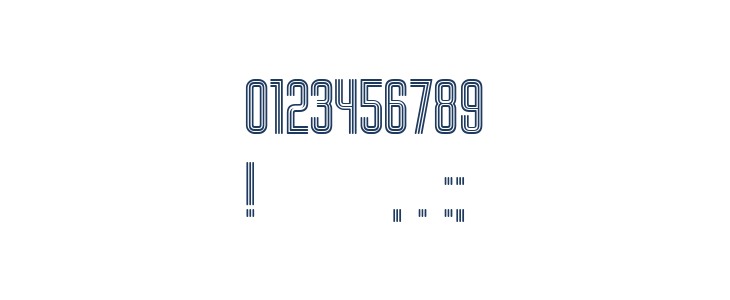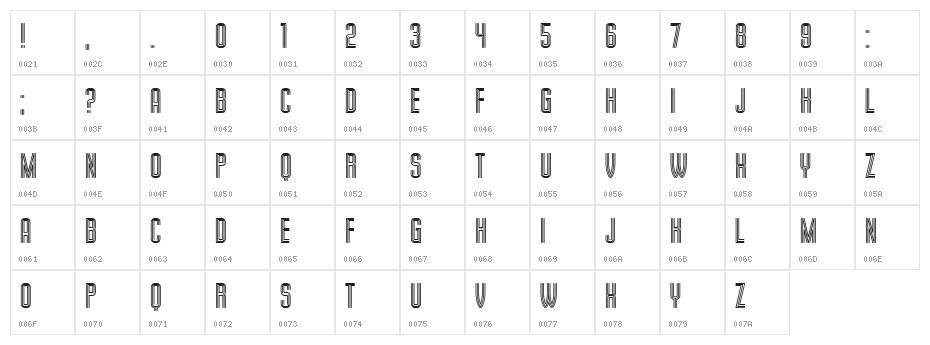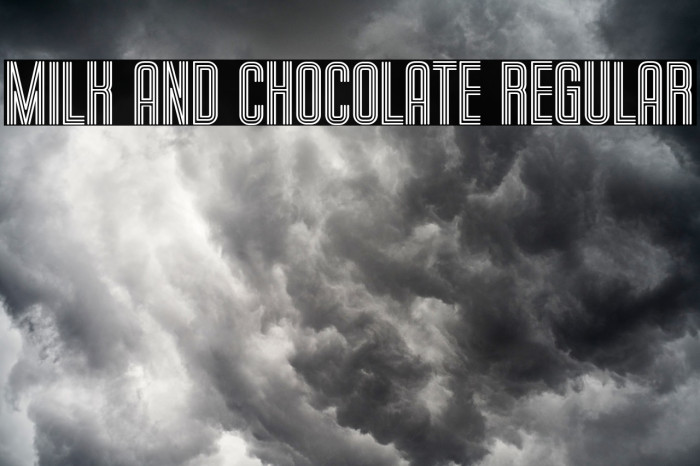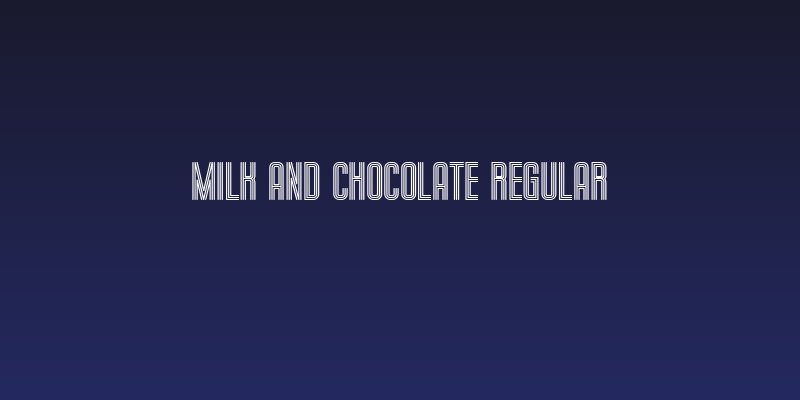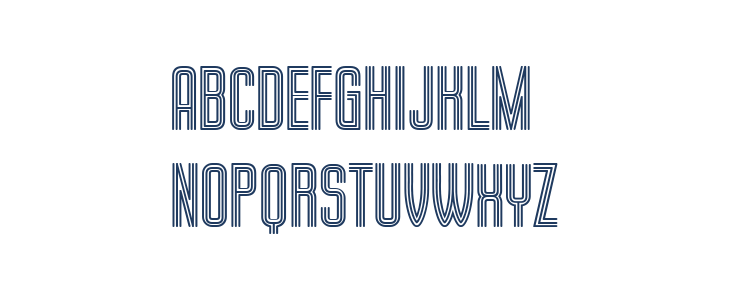
Milk and Chocolate Regular Font
Milk and Chocolate Regular Description
This font features a unique, decorative style with multiple parallel lines forming each character, creating a visually striking and intricate appearance. The uppercase letters are bold and geometric, with a consistent height and width that gives a uniform look. The numbers follow the same design principles, maintaining the decorative line pattern. The special characters are similarly styled, ensuring cohesion across all elements. This font's distinct design makes it ideal for projects that require a bold, eye-catching typeface.
| Proposed Projects | Ideal for posters, branding, headlines, and any design work that requires a standout, decorative typeface. |